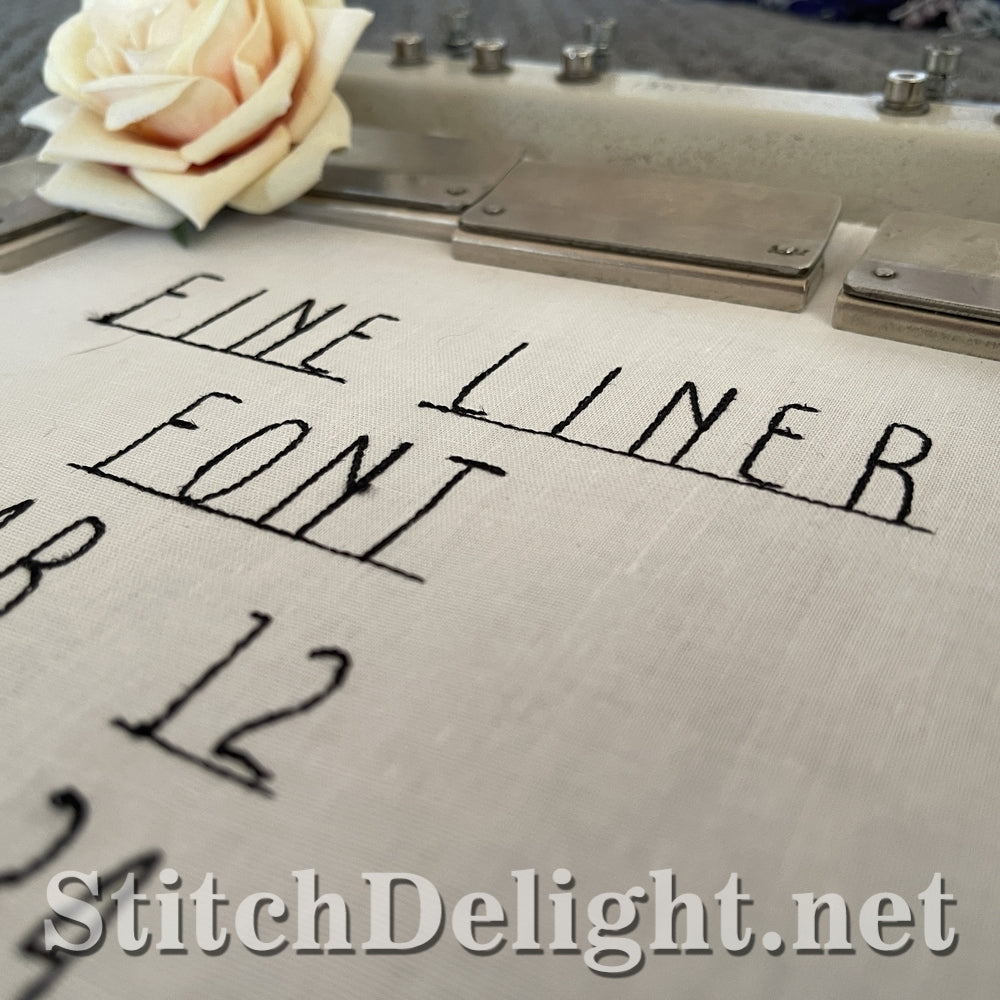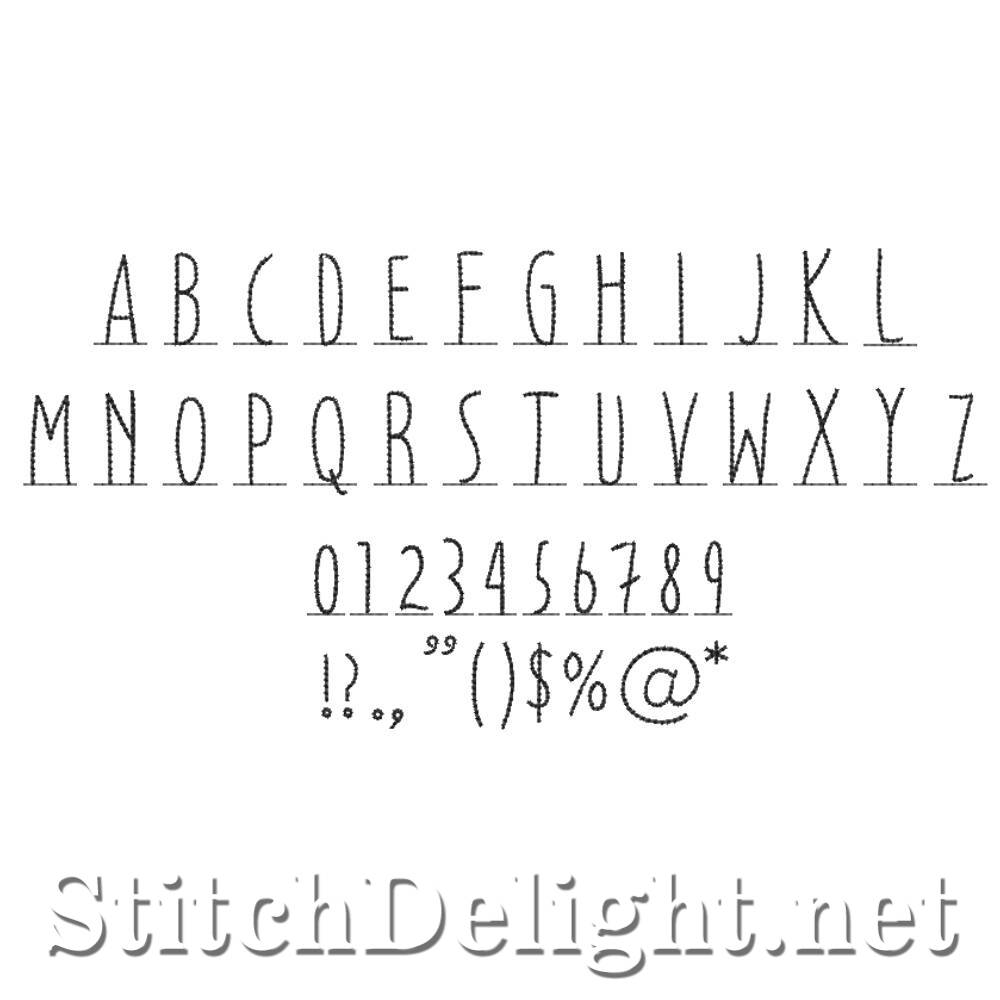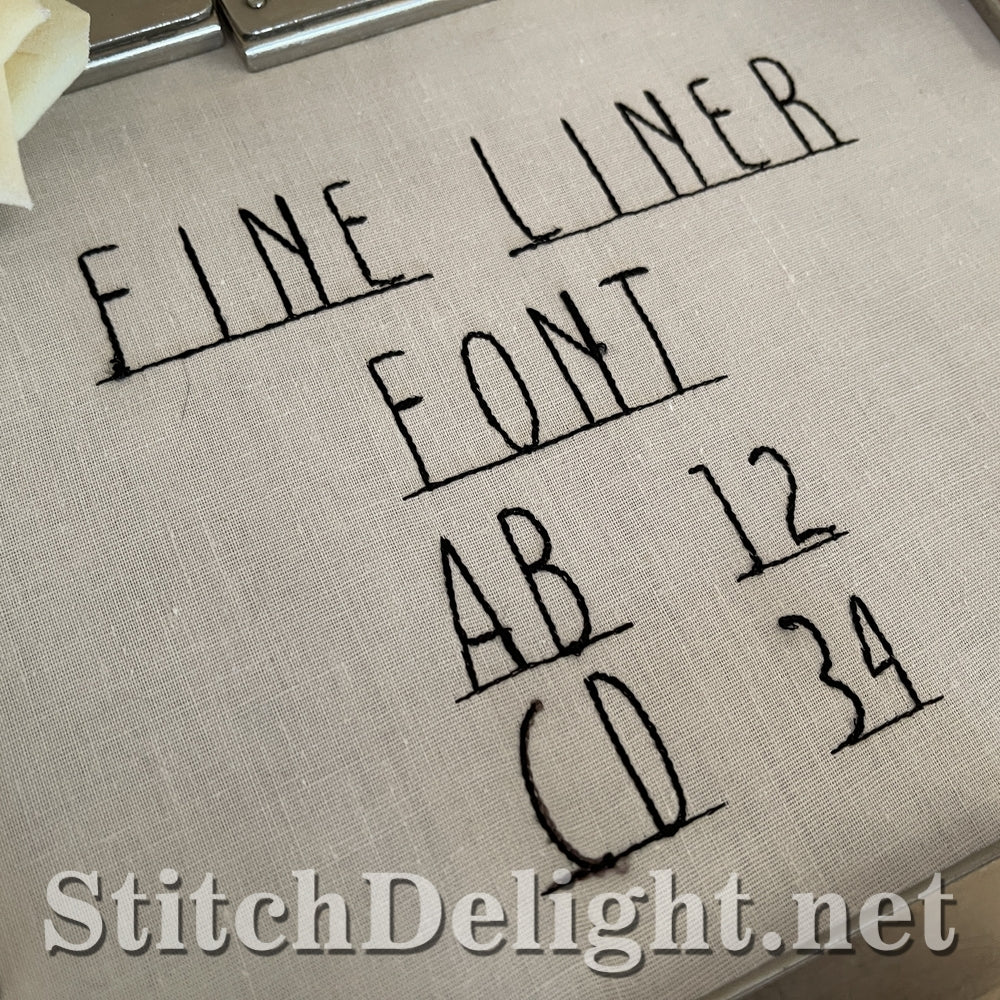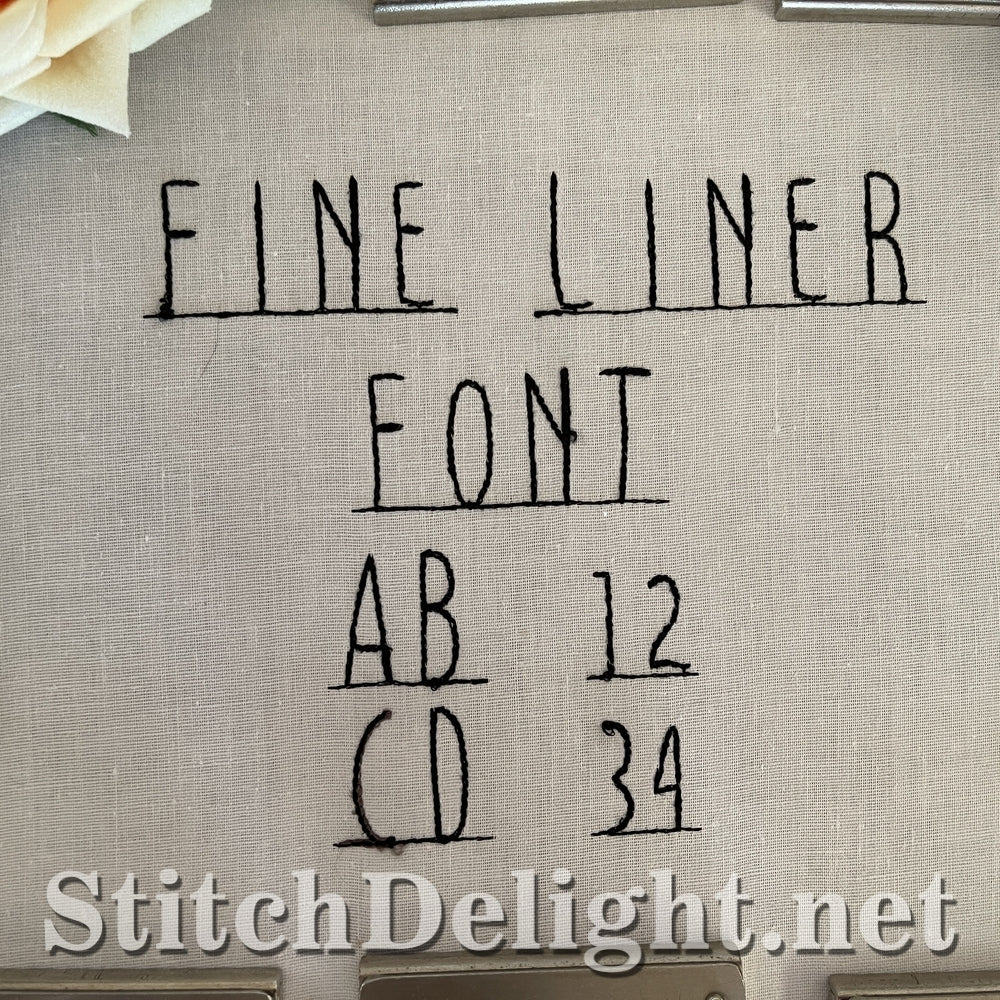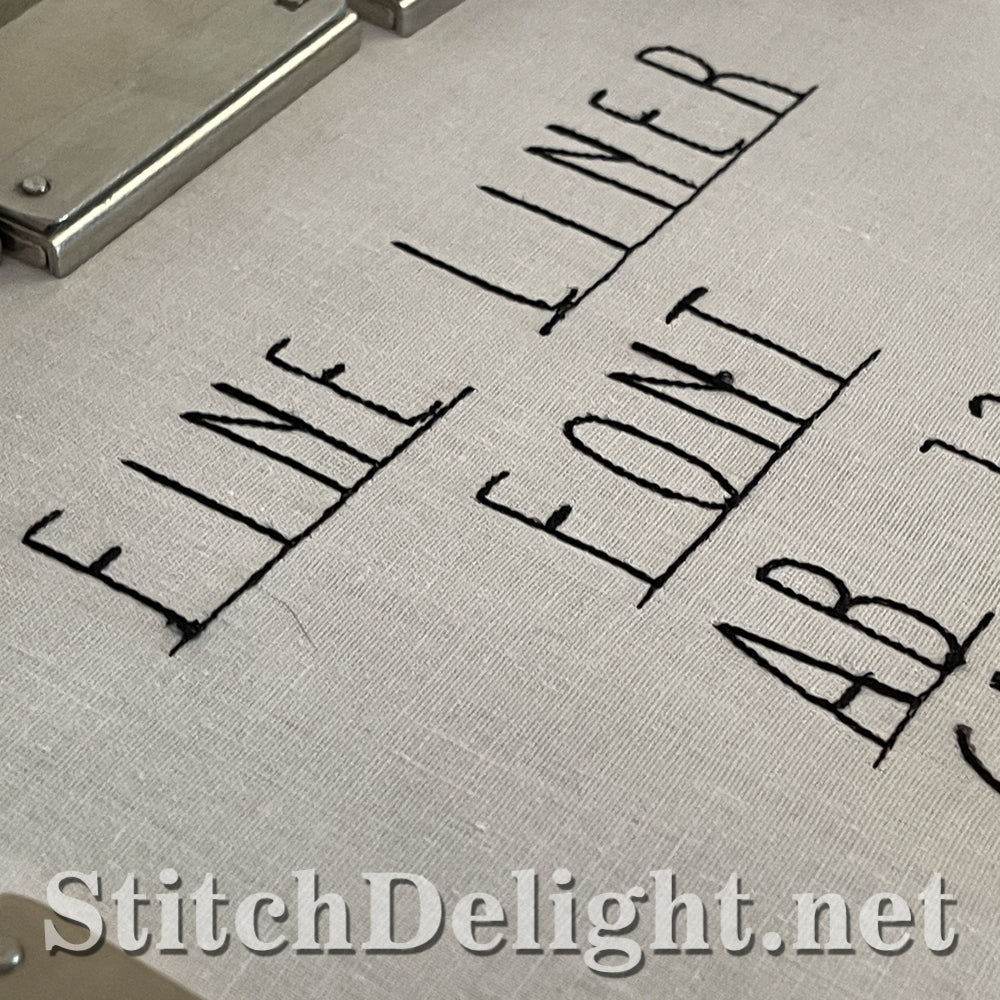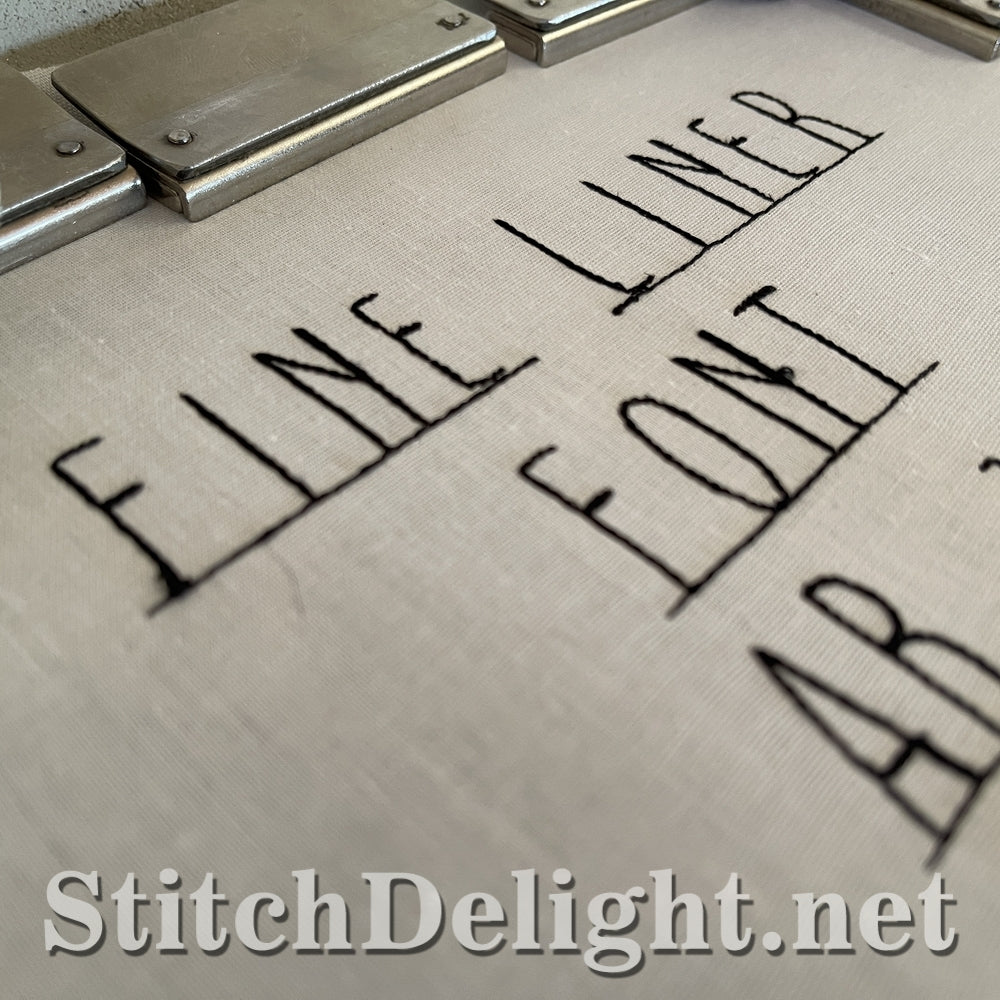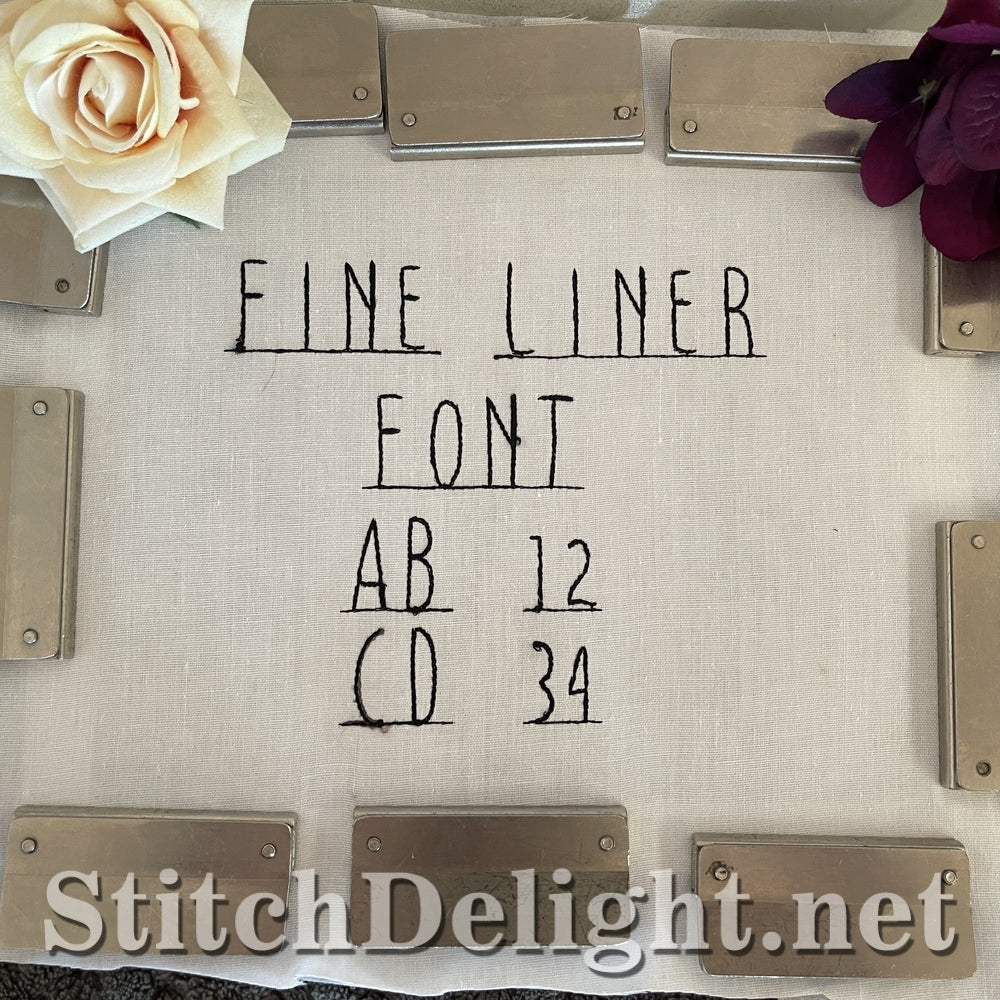
Easily type out your words and sentences in this stunning font using the BX format in Embrilliance Software. Average letter height comes in at around 0.85" or 22 mm, this tiny font is perfect for lengthy titles or to highlight text in your projects that might benefit from being underlined.